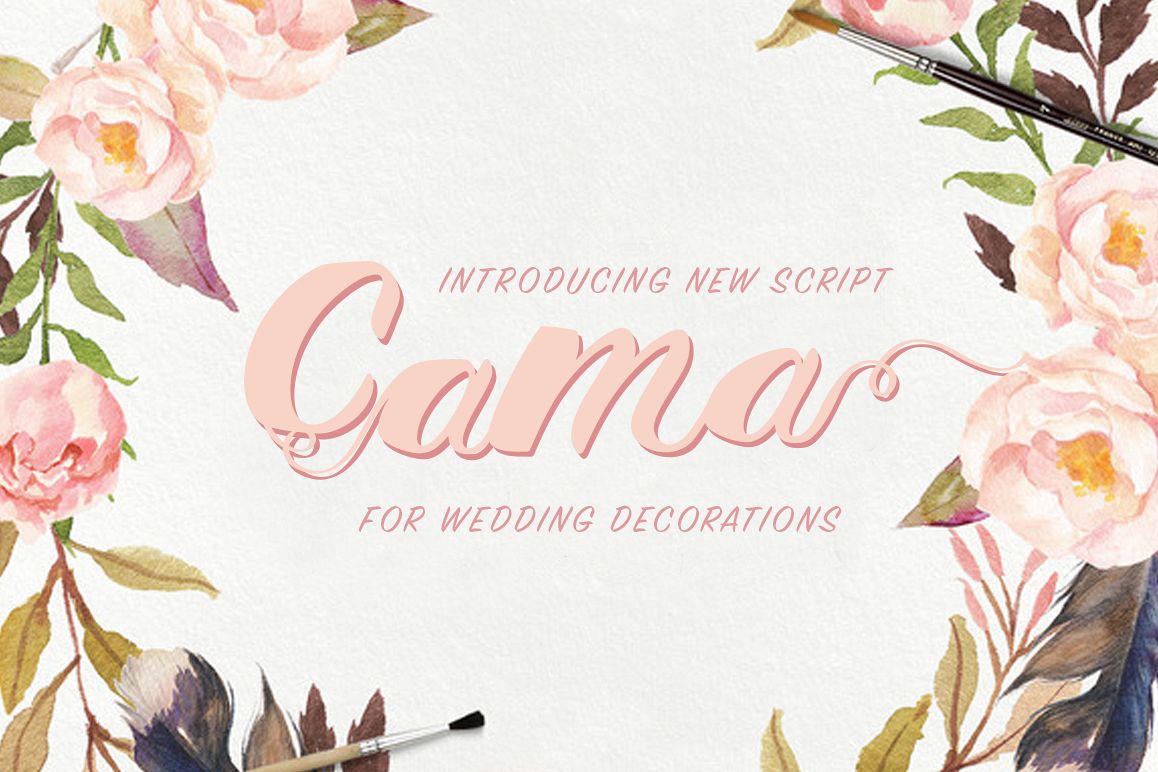
Cama
Cama-Regular
Hello my dear!CAMA is my new special font designed especially for WEDDING designs be it invitations, gift cards, signs on photographs, casts on video, site, guest cards or house decorations.
If you plan a wedding day this font is exactly that you need.It's suited for creating nicely looking headlines. With CAMA you can fascinate an attention of your family members, guests and sponsors. Be sure you can celebrate your special day in stylish manner using this font in cute but important details!
• initial symbols
• final symbols
• alternates
• ligatures
• swashes
• marks
• 200 glyphs